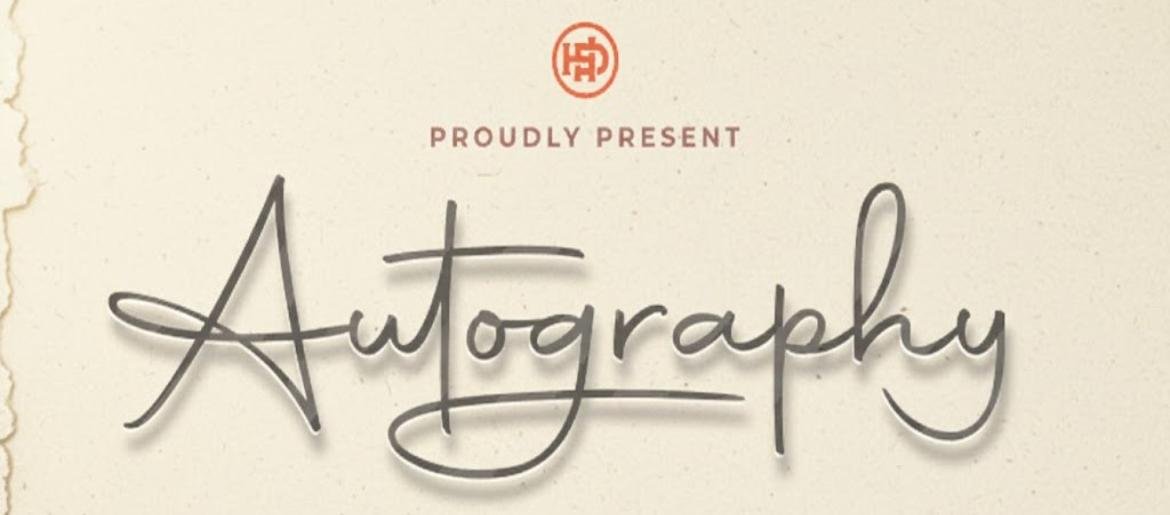
Autography Font by Hendra Pratama is a signature-style handwritten typeface that replicates the polished confidence of a real personal autograph. Its clean, flowing lines project an air of authority and refinement without sacrificing the organic warmth of genuine handwriting.